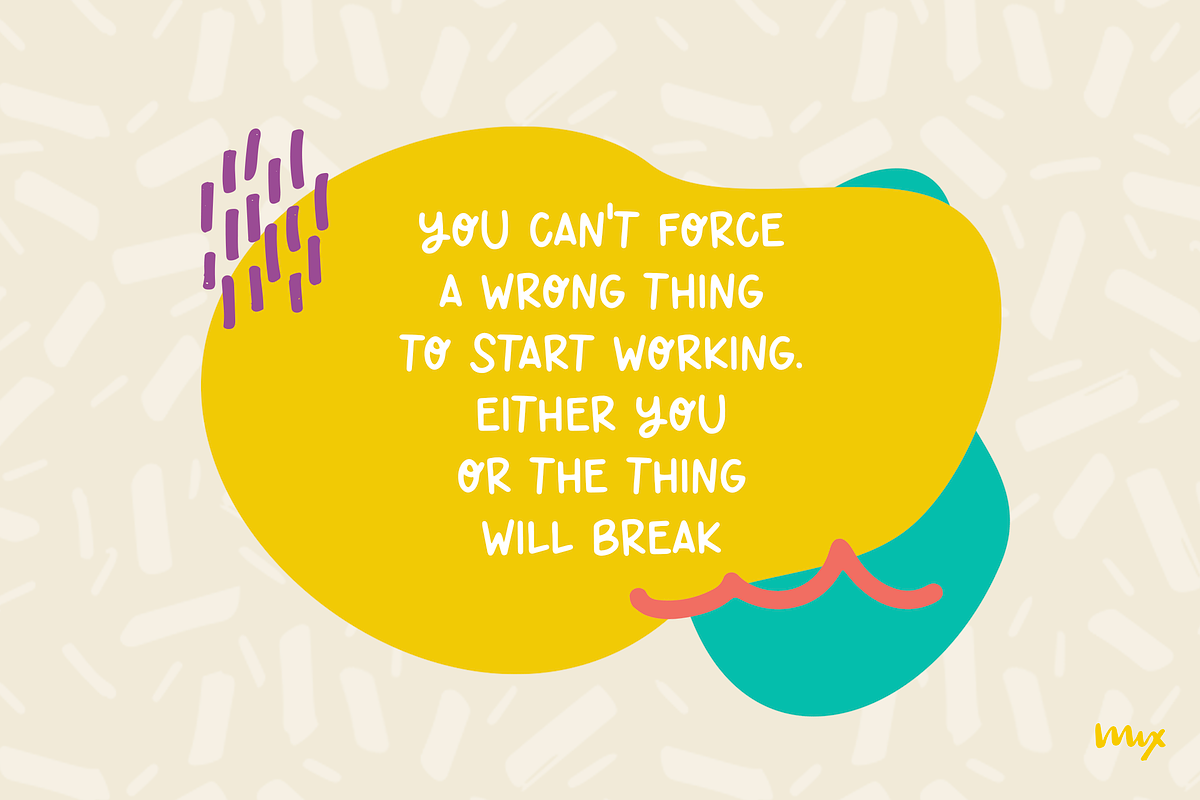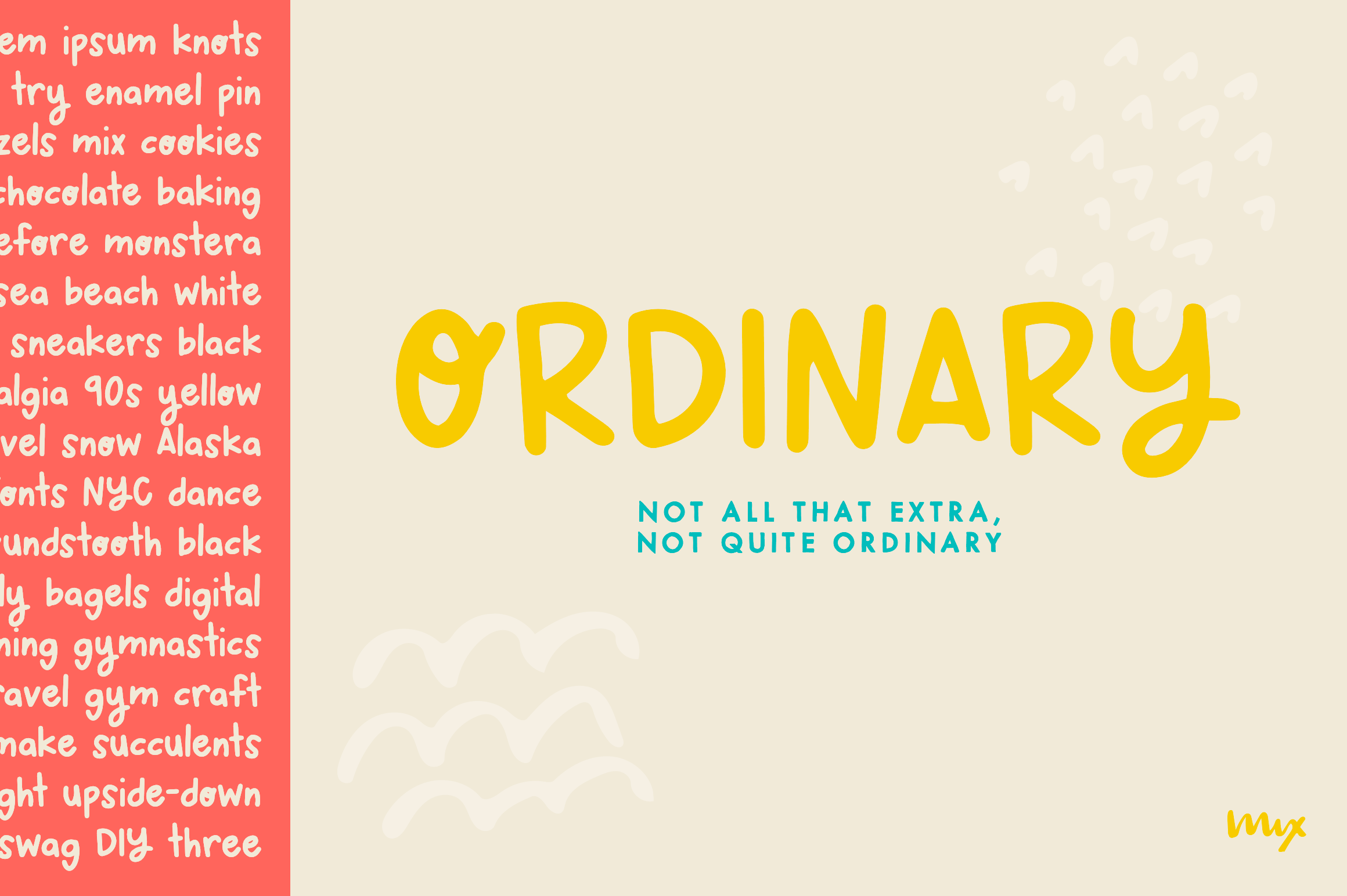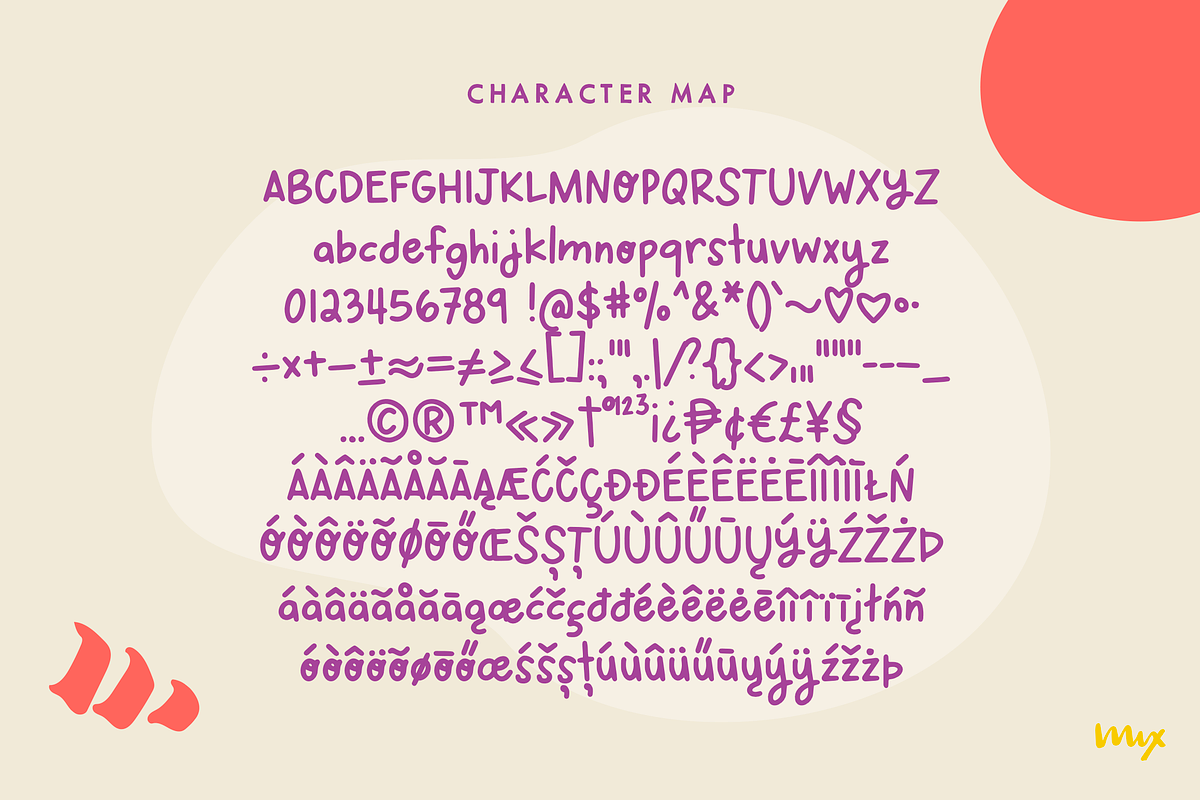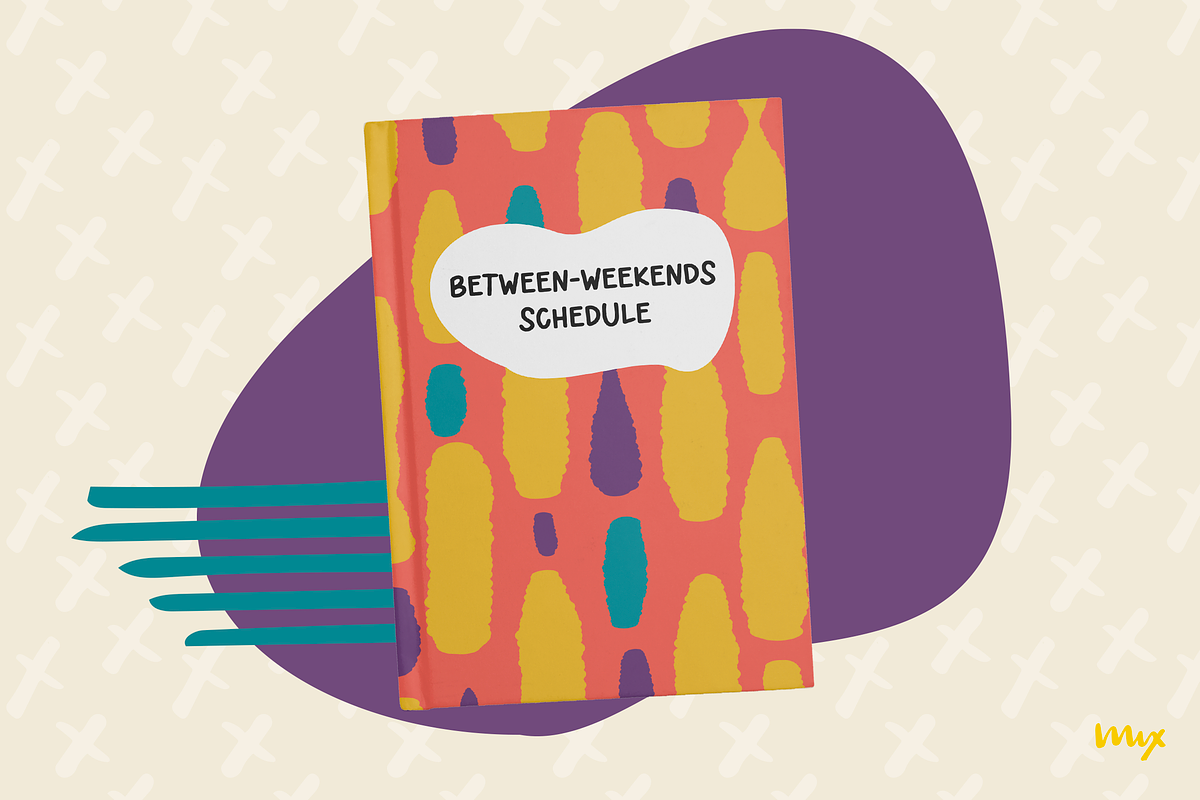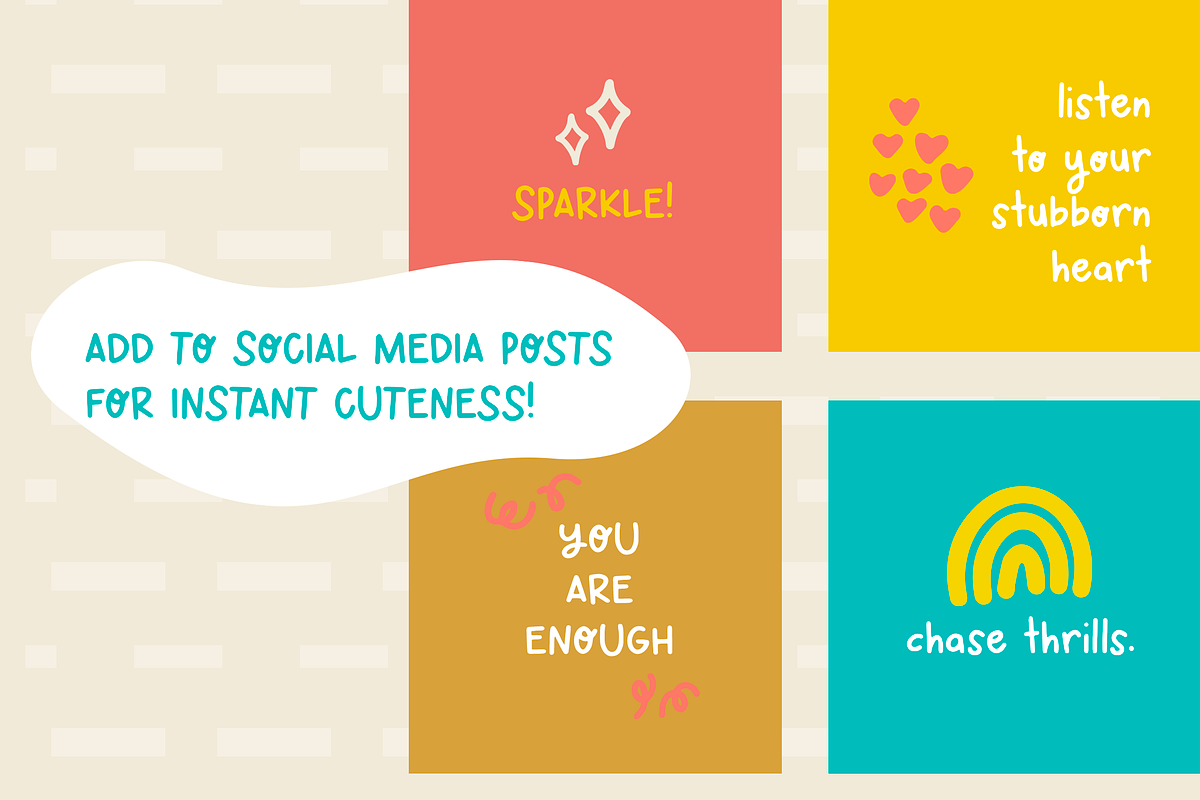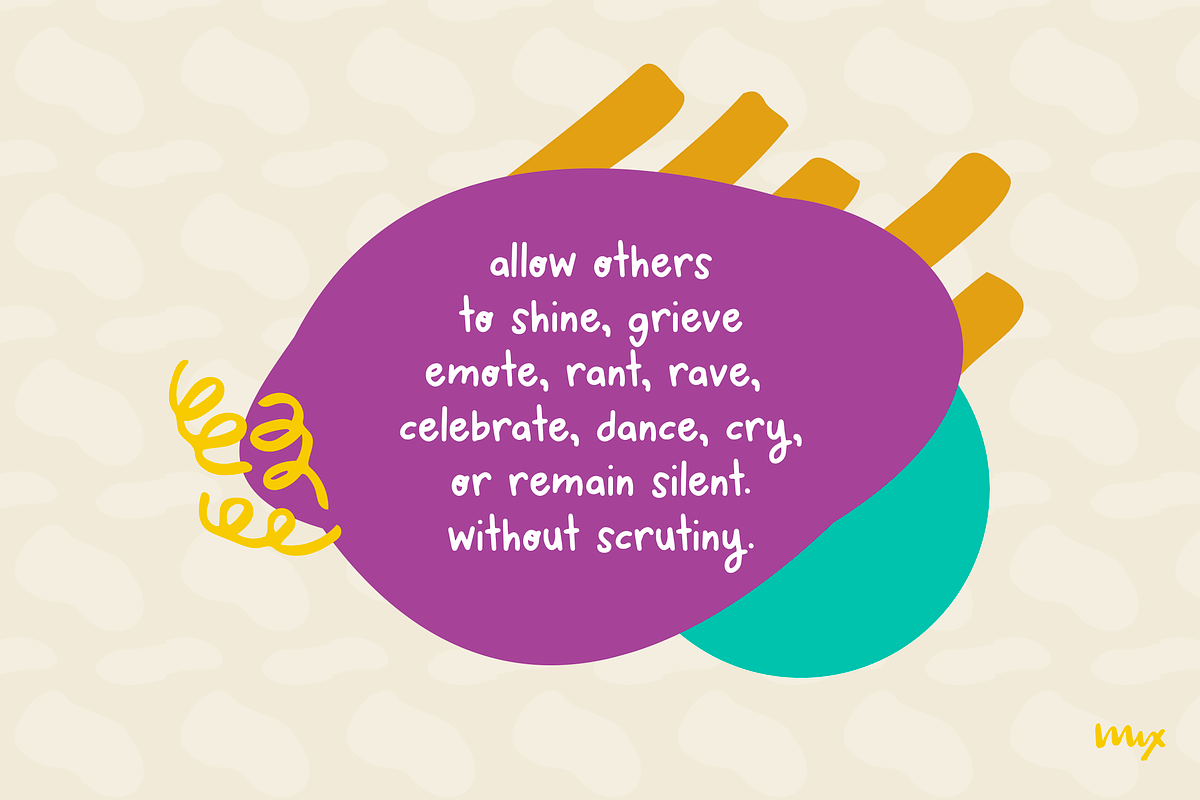
MIX ORDINARY is basic, with a few little quirky letters. Other than that, it’s not quite extra, just a bit ordinary. I sometimes say it adds a punch of Sassitude. Perfect balance of plain and cute.